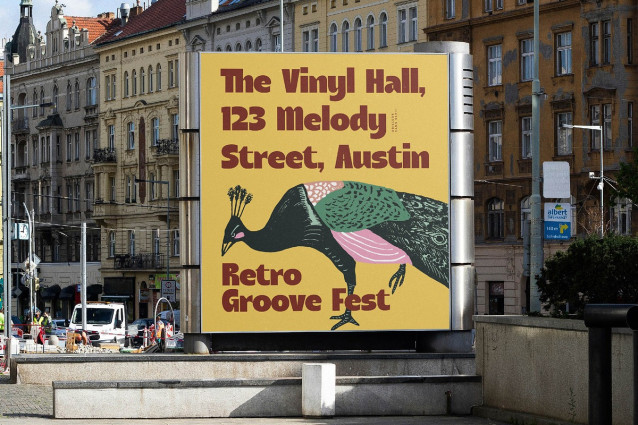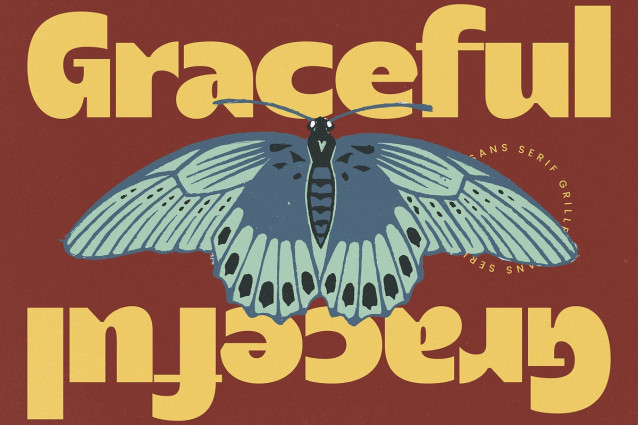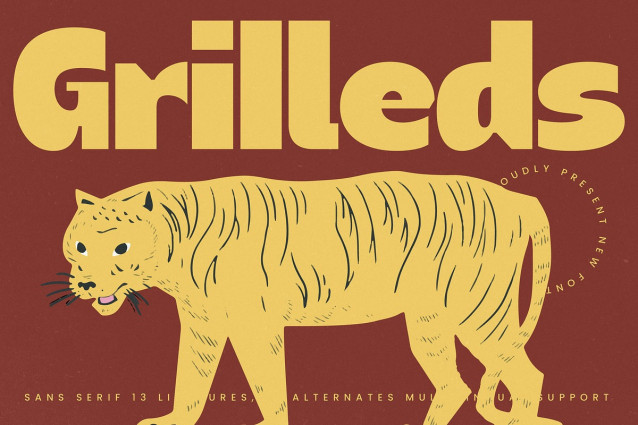
Grilleds Font
Grilleds Font a warm, rhythmic energy to your canvas, turning every word into a bold statement of joy. It is a typeface designed to spark a smile and capture the heart of anyone who sees it through its friendly yet commanding presence.
Inspired by the vibrant hand-painted signs and the organic textures of mid-century design, this font captures a raw, authentic charm. It breathes the air of a nostalgic era where every letterform tells a story of craftsmanship and artistic spirit.
With its chunky weights and unexpected curves, this modern serif display offers a high-impact branding impact while remaining deeply approachable. Its editorial font qualities are matched by a soul that is purely defined by character-driven typography and visual wit.
As the design world leans back into the organic and the expressive, Grilleds fits perfectly into the modern serif trend. It answers the growing demand for editorial display fonts that break away from sterile minimalism to embrace personality.
This is a powerhouse choice for logo design and packaging that needs to stand out on a crowded shelf. It also works beautifully for fashion labels looking for an edge or branding projects and editorial layouts that celebrate eccentricity and warmth.
The family is packed with artistic ligatures and alternates that allow for endless customization and creative flow. Complete with multilingual support and international characters, this font is ready to take your global projects to a premium level.